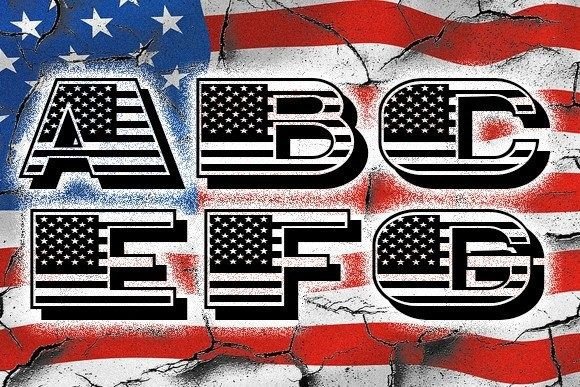
Citizen Font: Elevate Your Designs with a Stunning Decorative Typeface
Are you tired of using the same old fonts in your designs? Look no further than the Citizen Font, an awesome decorative typeface that is sure to make your creations stand out. With its unique and stylish aesthetic, Citizen is perfect for adding a touch of elegance and sophistication to any design project. In this article, we’ll take a closer look at the Citizen Font, its features, and how you can use it to take your designs to the next level.
What is Citizen Font?
Citizen Font is a decorative typeface designed to add a touch of luxury and glamour to your designs. Its unique and stylish aesthetic makes it perfect for use on posters, headlines, flags, and much more. Whether you’re a designer, craftsperson, or simply a DIY enthusiast, Citizen Font is an excellent choice for anyone looking to add a bit of flair to their creations.
Key Features of Citizen Font
- Unique and Stylish Aesthetic: Citizen Font boasts a distinctive and stylish design that is sure to turn heads. Its elegant lines and curves make it perfect for adding a touch of sophistication to any design.
- Highly Versatile: Citizen Font is incredibly versatile and can be used on a wide range of design projects, from posters and headlines to flags and more.
- Easily Readable: Despite its decorative nature, Citizen Font is surprisingly easy to read, making it perfect for use on both digital and print materials.
How to Use Citizen Font in Your Designs
Using Citizen Font in your designs is incredibly easy. Here are a few tips to get you started:
- Pair it with a Simple Font: For maximum impact, pair Citizen Font with a simple font to create a striking contrast.
- Experiment with Different Sizes: Don’t be afraid to experiment with different sizes to add visual interest to your designs.
- Use it on Headlines and Titles: Citizen Font is perfect for use on headlines and titles, where its decorative nature can really shine.
Design Ideas Using Citizen Font
Citizen Font is incredibly versatile and can be used in a wide range of design projects. Here are a few ideas to get you started:
- Posters and Flyers: Use Citizen Font to create eye-catching posters and flyers that are sure to grab attention.
- Logos and Branding: Citizen Font is perfect for use in logos and branding materials, where its unique aesthetic can help to create a lasting impression.
- Social Media Graphics: Use Citizen Font to create stunning social media graphics that are sure to stand out from the crowd.
- Wedding Invitations and Stationery: Citizen Font is a great choice for wedding invitations and stationery, where its elegant design can add a touch of sophistication.
In conclusion, Citizen Font is an awesome decorative typeface that is sure to elevate your designs to the next level. With its unique and stylish aesthetic, highly versatile nature, and ease of use, Citizen Font is perfect for designers, craftspersons, and DIY enthusiasts alike. So why not give it a try and see the difference it can make in your designs?
Tips for Working with Citizen Font
- Use it Sparingly: While Citizen Font is certainly eye-catching, it’s best used sparingly to avoid overwhelming the viewer.
- Experiment with Different Colors: Don’t be afraid to experiment with different colors to add an extra layer of visual interest to your designs.
- Pay Attention to Kerning: As with any font, pay attention to kerning to ensure that your text looks professional and polished.
By following these tips and using Citizen Font in your designs, you’ll be able to create stunning and eye-catching creations that are sure to leave a lasting impression.